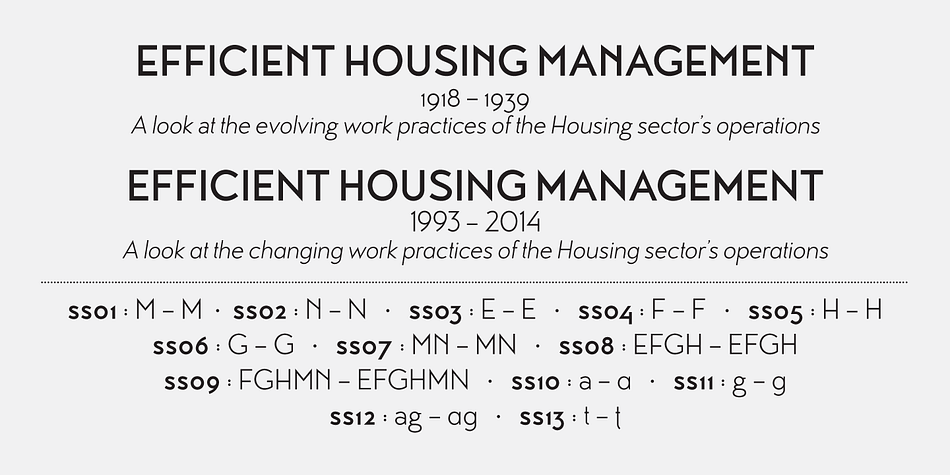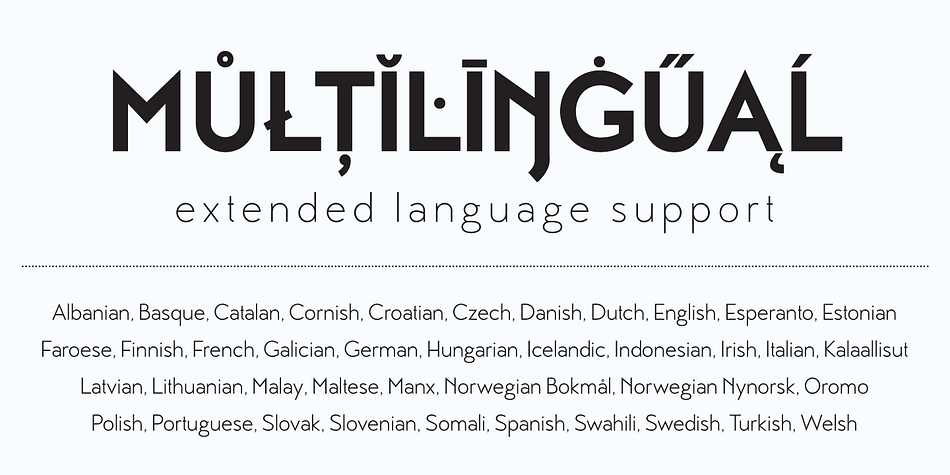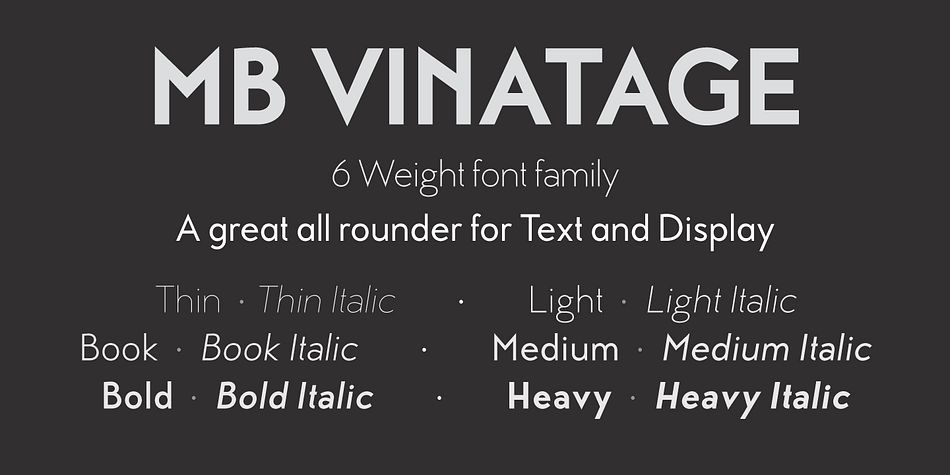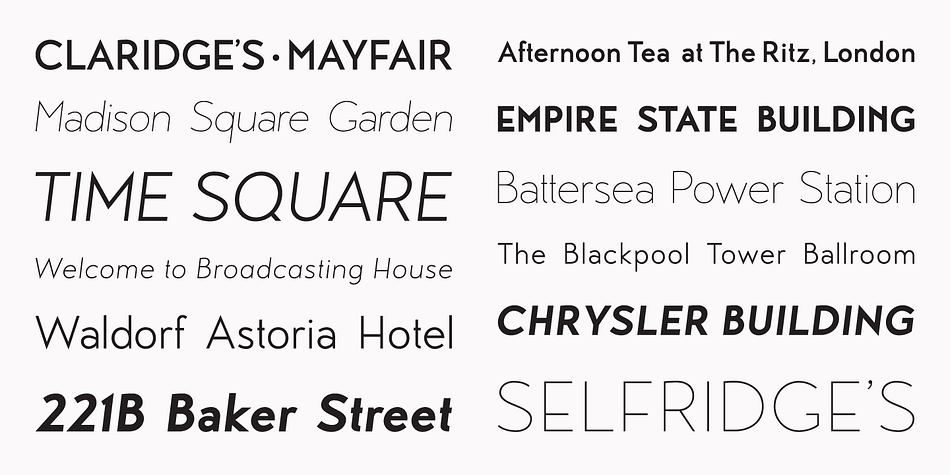
MB Vinatage is a sans serif font family. This typeface has twelve styles and was published by M-B Creative.
MB Vinatage is a 6 weight font family with italics that has its roots based firmly in the type and font design of the early 20th Century.
It has some Art Deco touches in the standard caps like the N and the low bars on the E, F & H. But, using the stylistic alternates, these can be changed to give the font a more contemporary look. The same applies to the lower case letters, with an alternate a and g and a stylistic lowercase t.
The family works great as a display font using the thin and heavy weights and just as well for smaller & bulk text.
Stay traditional or go contemporary or mix it up!